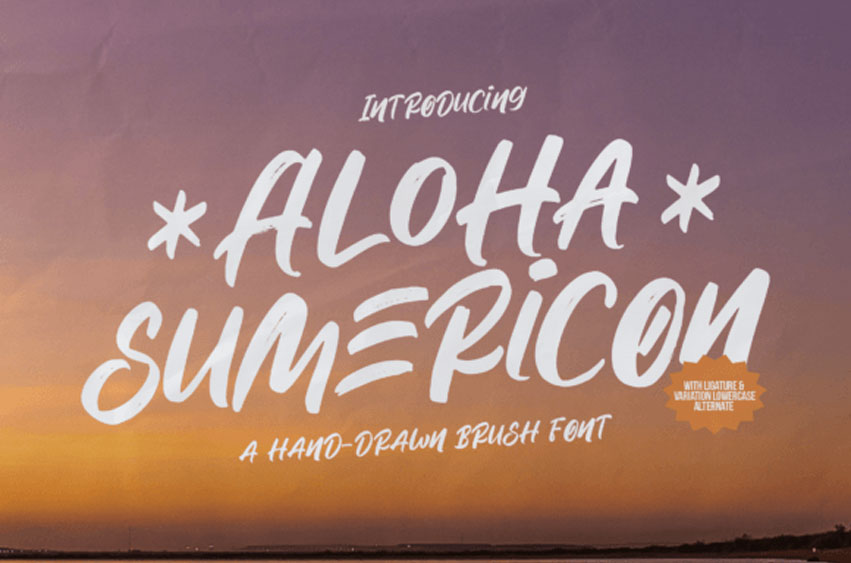
Aloha Sumericon Font
Aloha Sumericon Font is a hand-drawn brush font with a fun, relaxed style.
It features smooth, flowing letters that give a casual, beachy feel, perfect for designs that need a creative, laid-back touch.